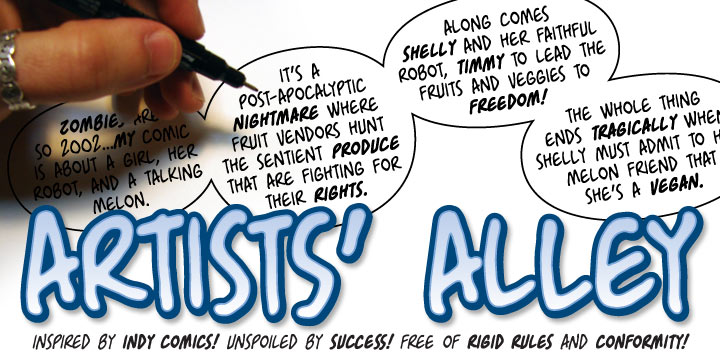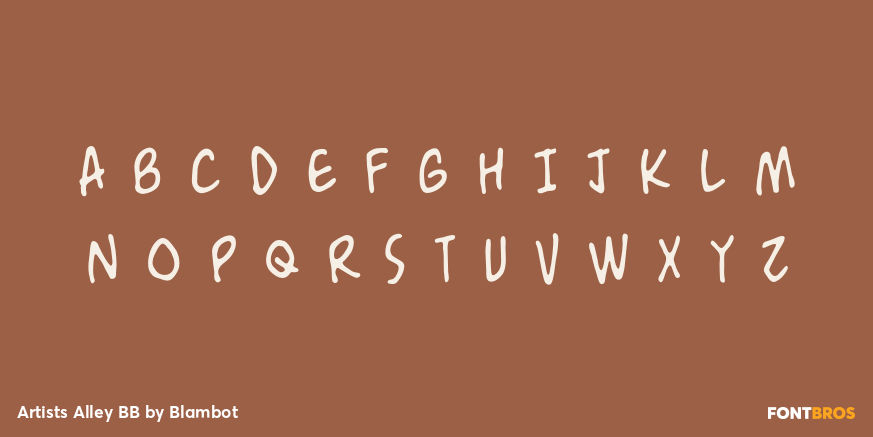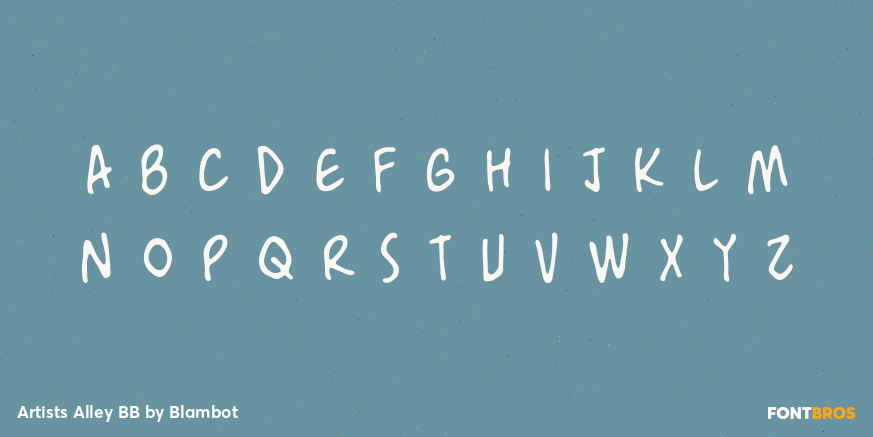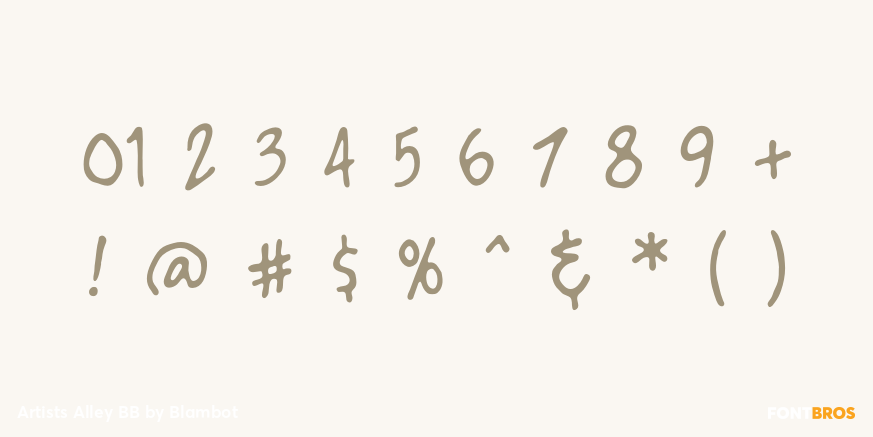
Artists Alley BB
Font Family by Blambot
There's really something awesome about the free-form lettering you see on honest to goodness independent comics. The drawn-on-typing paper, photocopied and stapled by the artist...OLD SCHOOL indy comics.
This new font family was inspired by those late nights at Kinkos!
Comes with Regular, Italic and Bold with plenty of European characters and the opentype version has autoligs that swap out double letters for a more organic look.